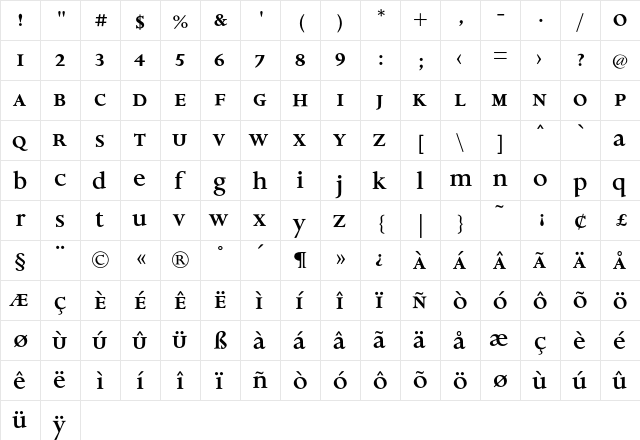
Aries BoldSmallCapLowerCase
Design Context for Aries Typeface
Aries is a composed and adaptable typeface that performs quietly and consistently across a wide range of design contexts. The heavy weight commands attention and anchors typographic hierarchies.